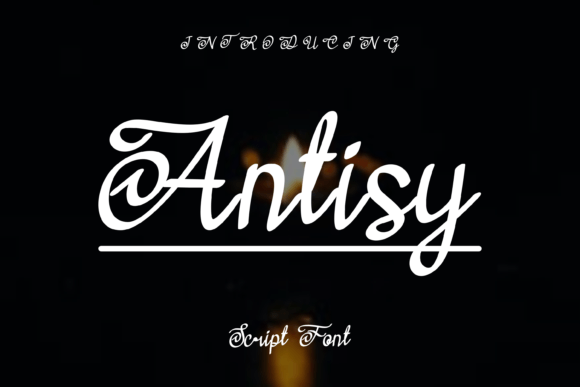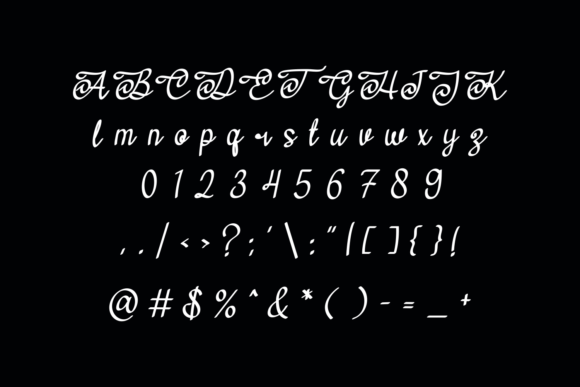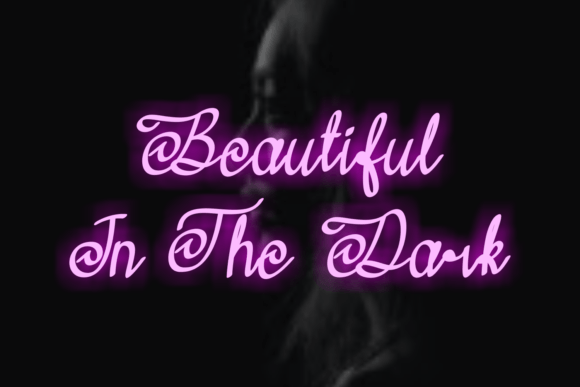
Antisy Font
About Antisy Font
The Antisy Font Download is a stylish and delicate handwritten script created to bring elegance and refinement to your creative work. Featuring thin, smooth strokes and graceful curves, Antisy captures the charm of authentic handwriting while providing a polished look that works across a wide variety of projects.
Its lightweight and flowing design makes it versatile and appealing for both formal and casual uses. Whether you’re designing wedding invitations, greeting cards, product packaging, or digital content, Antisy adds a touch of sophistication that makes your designs stand out.
Features of Antisy Font
When you download the Antisy Font, you’ll enjoy these creative benefits:
• Stylish handwritten script with a delicate flow
• Thin and smooth strokes for an elegant finish
• Complete character set with uppercase, lowercase, numerals, and punctuation
• High readability for both print and digital use
• Refined, modern style that adapts to many creative contexts
Best Uses for Antisy Font
The Antisy Font Download is perfect for a wide variety of applications, including:
• Wedding invitations and stationery – Add elegance and romance to your special day
• Greeting cards and thank-you notes – Create heartfelt designs with style
• Logos and branding – Perfect for boutique businesses, fashion brands, and lifestyle identities
• Product packaging – Enhance labels for beauty, food, or handmade products
• Quotes and wall art – Turn words into sophisticated visual statements
• Social media graphics – Stylish, eye-catching posts for Instagram and Pinterest
• Editorial layouts – Add chic headings to magazines, brochures, and digital content
Why Choose Antisy Font
The Antisy Font Download is special because it combines delicate handwritten elegance with modern clarity. Unlike fonts that are either too bold or overly complex, Antisy delivers smooth readability while maintaining a refined aesthetic.
Designers value Antisy for its timeless versatility and charm. It works equally well in small text, like packaging labels, and large applications such as posters or digital campaigns. Its thin strokes and graceful flow make it an essential font for creatives who want to balance personality with professionalism.
The Antisy Font Download is a stylish, delicate handwritten script designed to bring sophistication and smooth beauty to your designs. With its thin strokes, versatile applications, and modern appeal, it’s the perfect choice for invitations, logos, packaging, social media graphics, and more.